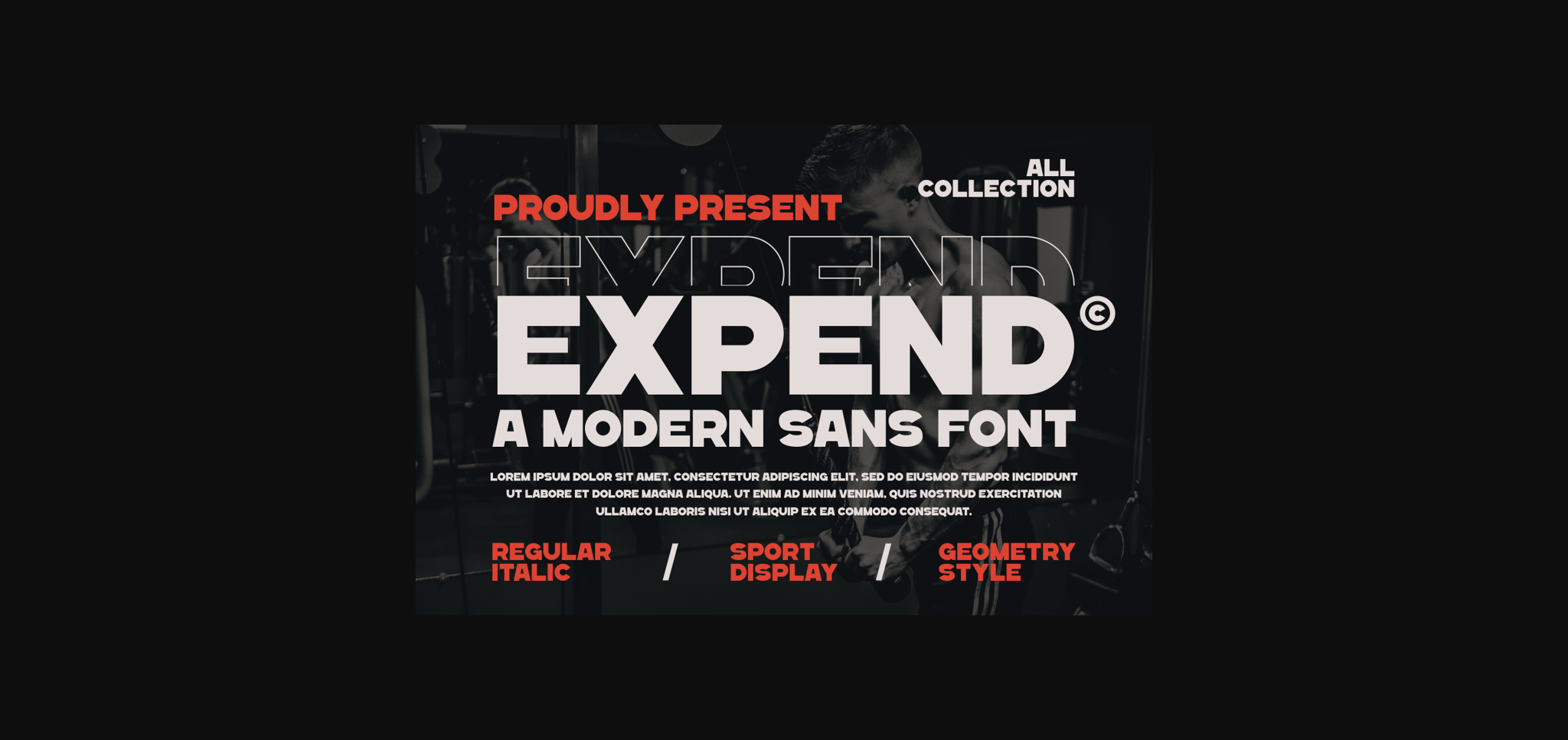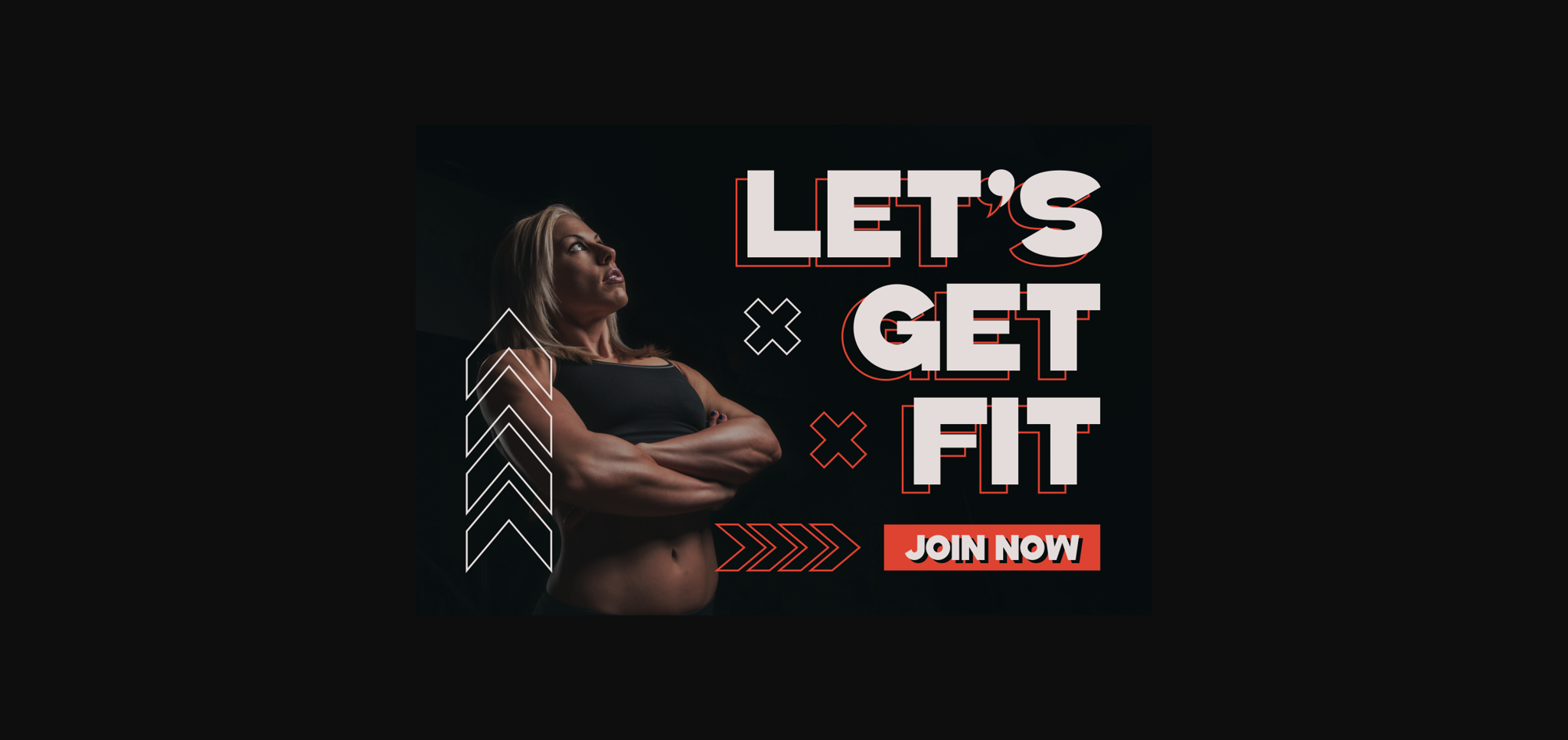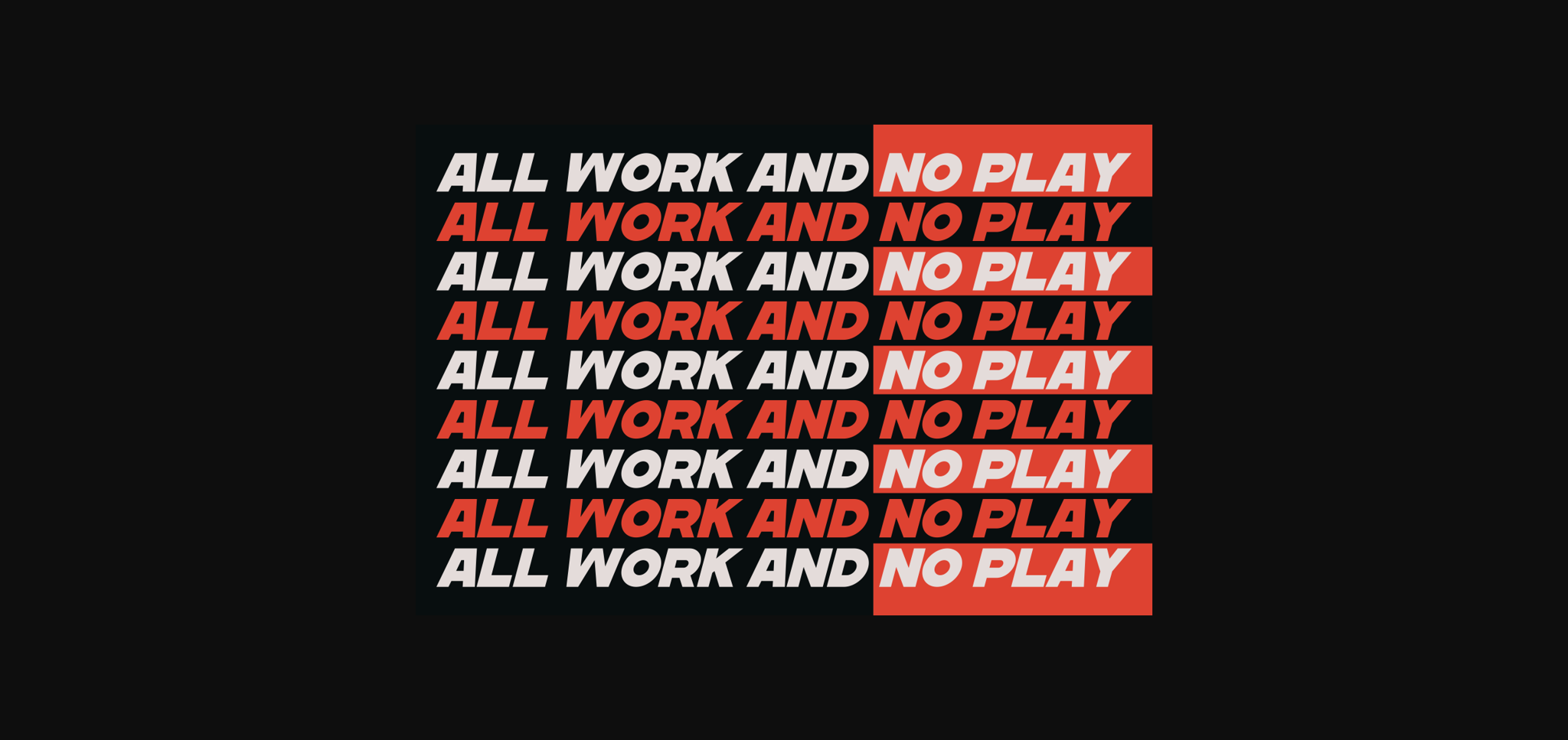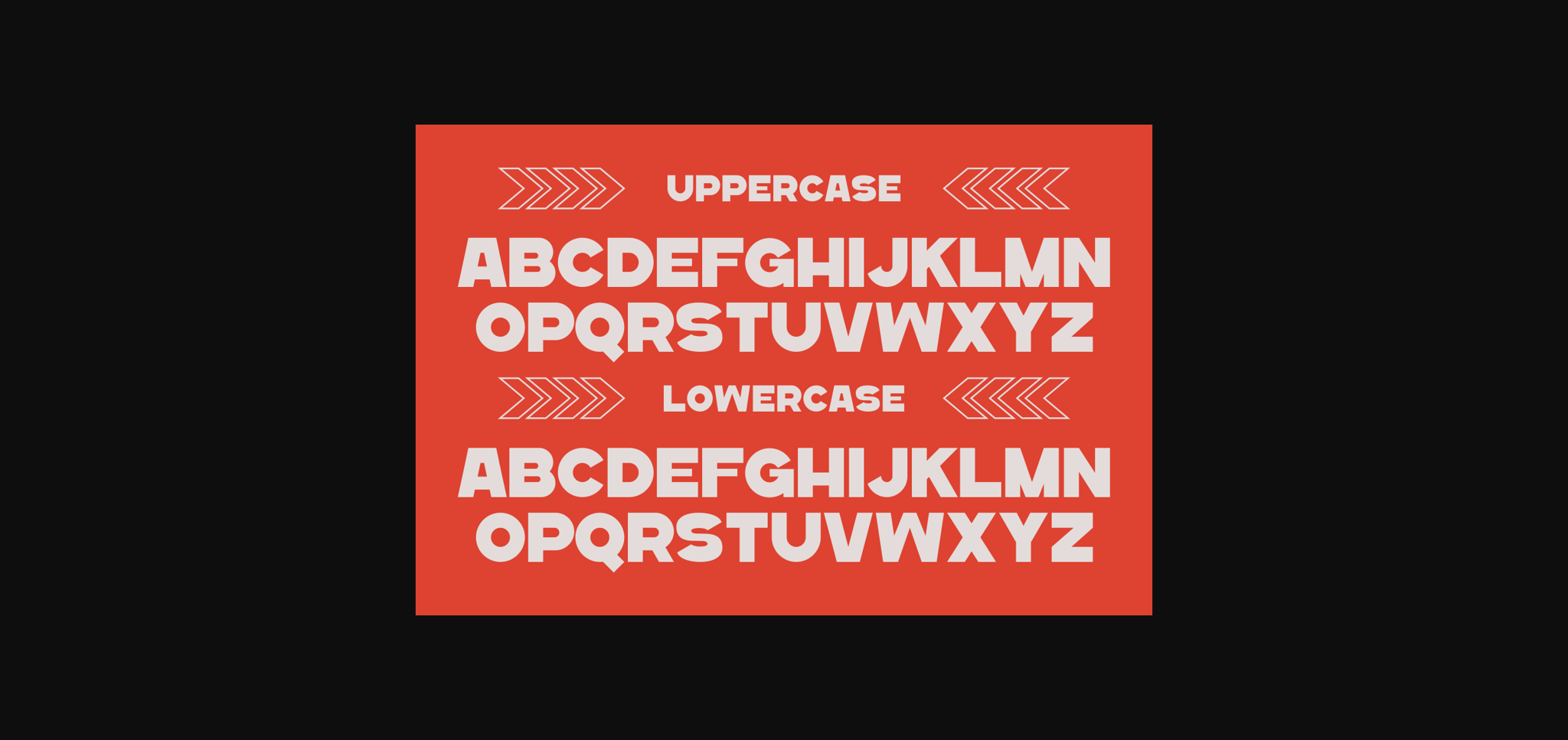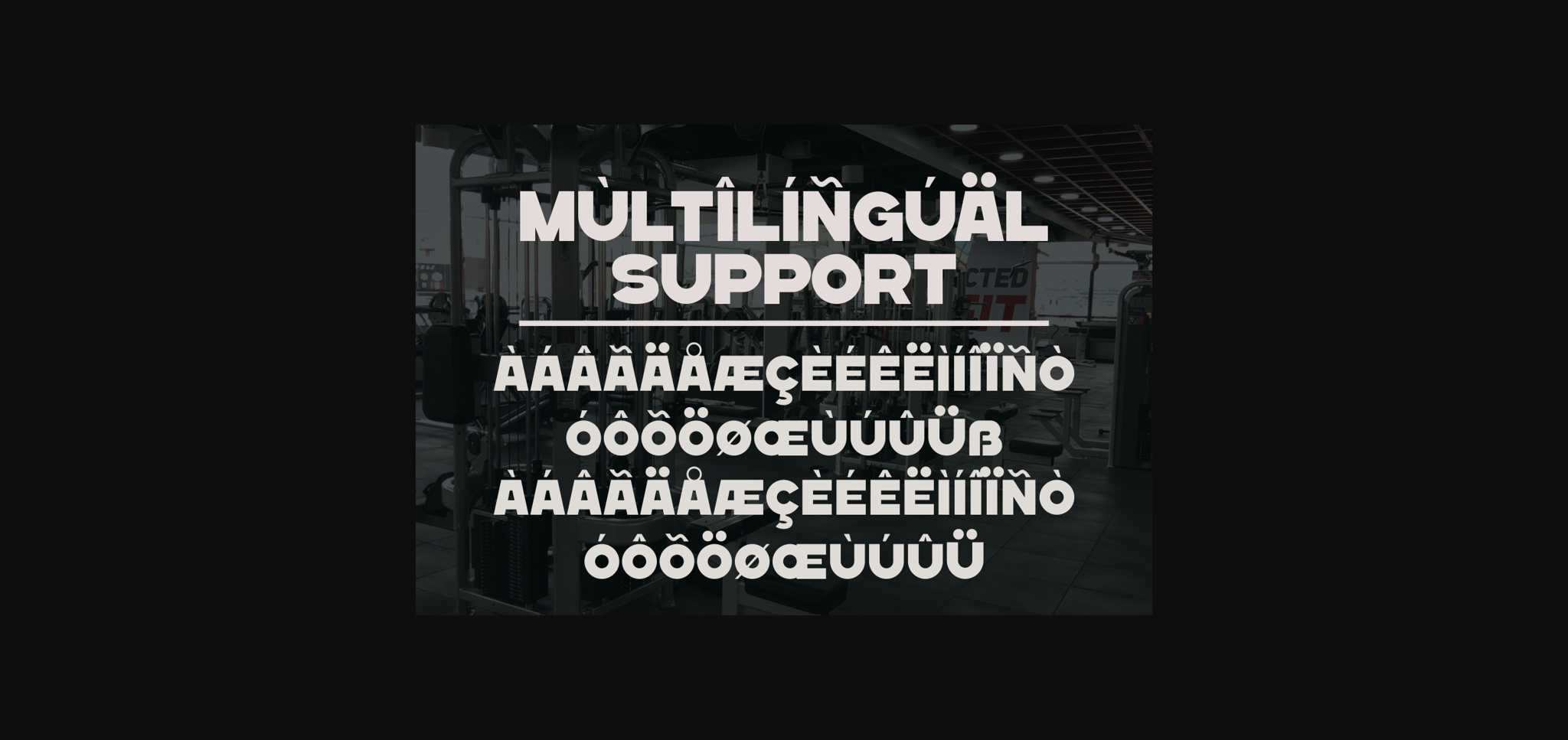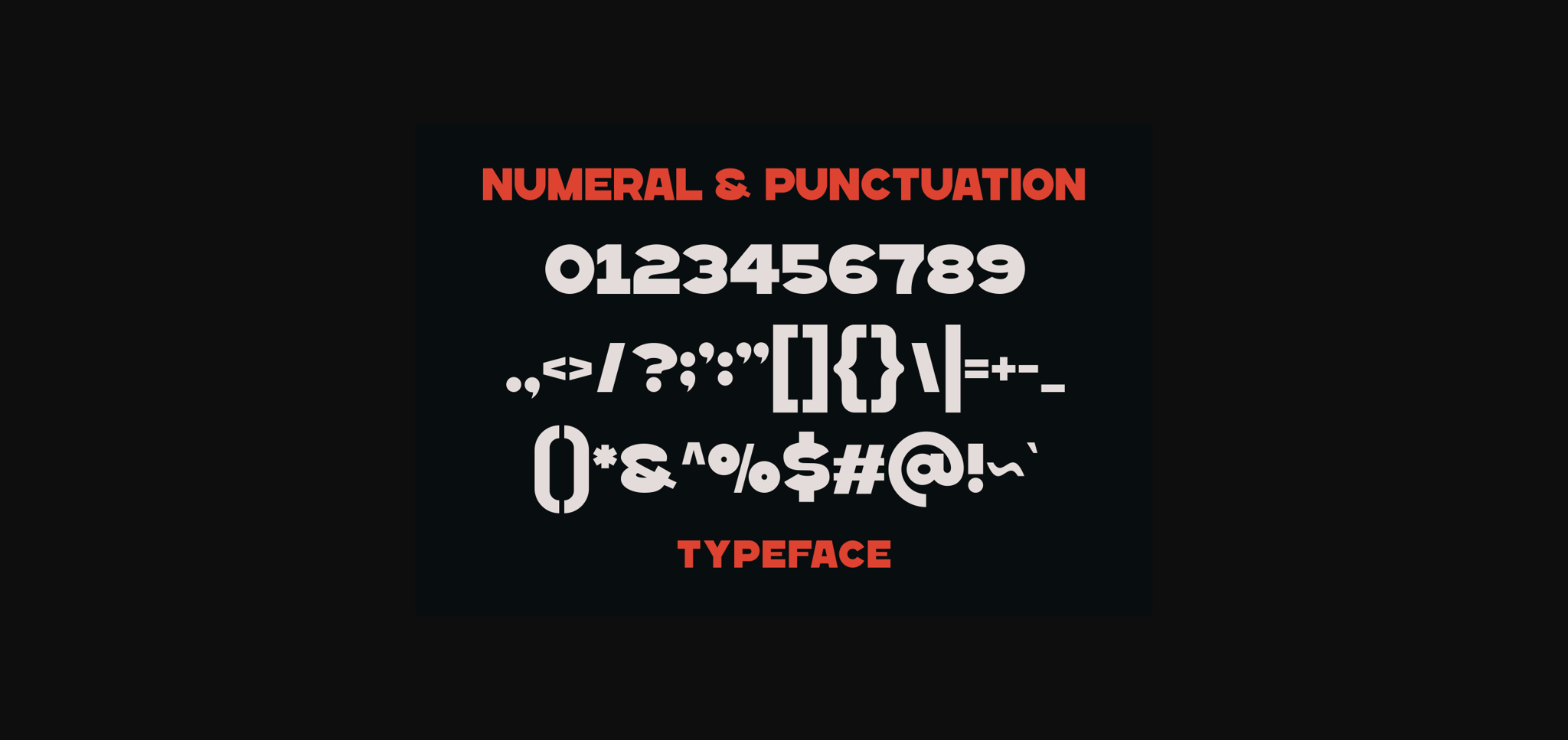
About Expend Font
EXPEND is a sleek and modern sans-serif font that effortlessly combines style and simplicity. With clean lines and a contemporary vibe, it’s perfect for giving your designs a fresh and polished look. Whether you’re working on branding, headlines, or any project that demands a modern aesthetic, EXPEND delivers a crisp and professional feel. Elevate your typography with this versatile font that brings a touch of sophistication to every design.